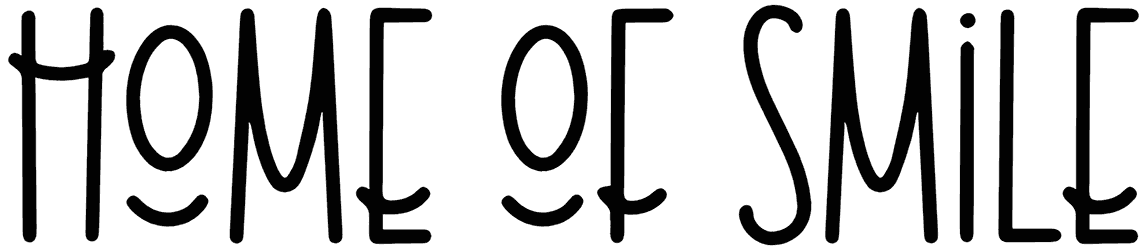
Home of Smile Font
If you are seeking a minimal and natural style to present your new layout in an intimate and charming way, this offer can satisfy you. Home of Smile is a cute handwritten font with soft and casual lettering. There is no backup for lowercase, but with two series of capitals, the Home of Smile font will be a nice illustration for projects from postcards to packaging.
HOME OF SMILE